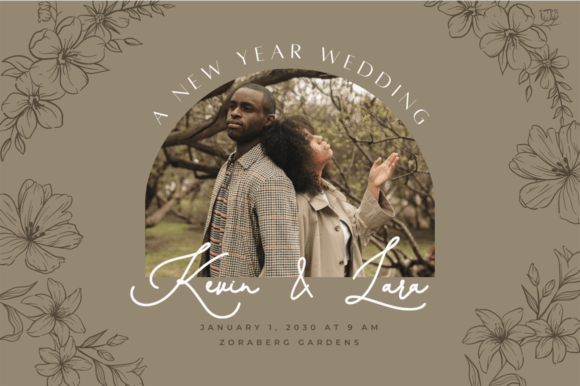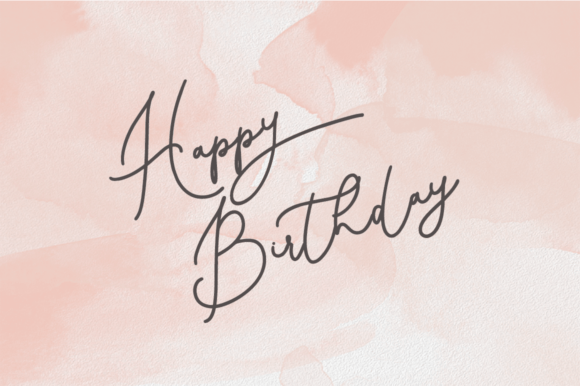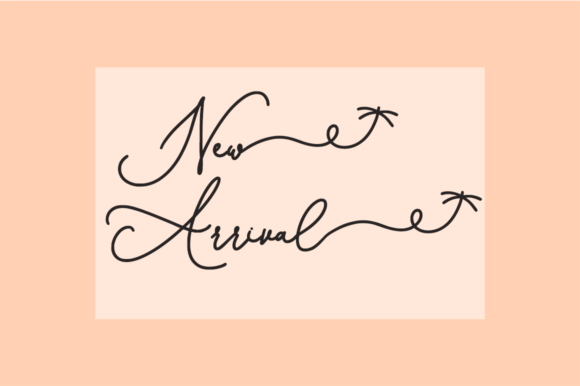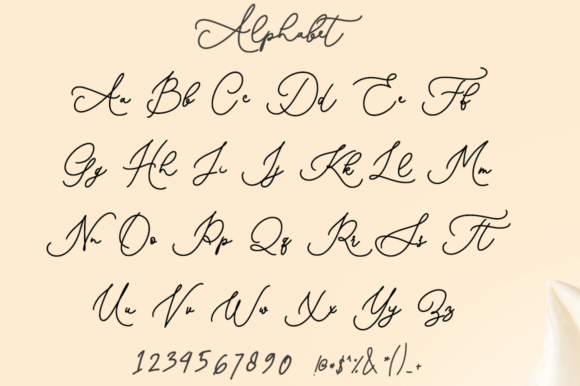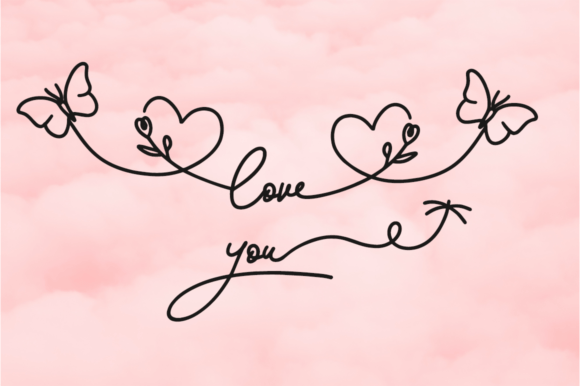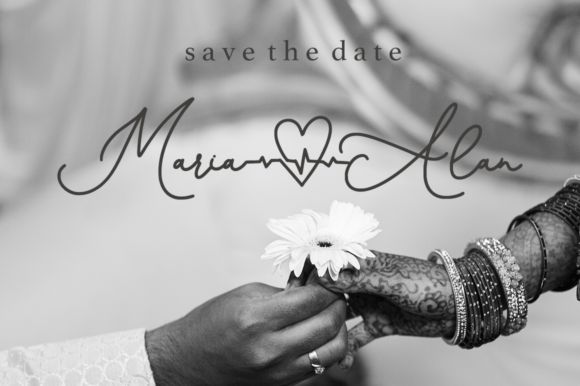
Introducing Alangia Font: A Modern Signature Design for Creative Expression
Are you a designer, crafty enthusiast, or simply someone who appreciates beautiful typography? Look no further than the Alangia Font, a stunning modern signature design that is sure to elevate your creative projects. This gorgeous font features a casual yet elegant style, complete with swashes that add a touch of sophistication to any design.
What is Alangia Script?
Alangia Script is a modern signature design font that includes a regular style, perfect for a wide range of applications. Its casual and beautiful design makes it an excellent choice for various purposes, such as:
- Product packaging
- Headlines and signage
- Labels and signatures
- Book covers and posters
- Quotes and more
Key Features of Alangia Script
Alangia Script boasts several impressive features that make it a versatile and valuable addition to any designer’s toolkit. Some of its key features include:
- OpenType language style, binding, and international support for most Western languages
- Swashes and alternative characters for added creativity and customization
- Unique and stylish design that will make your work stand out
- Versatile and adaptable, suitable for a wide range of applications